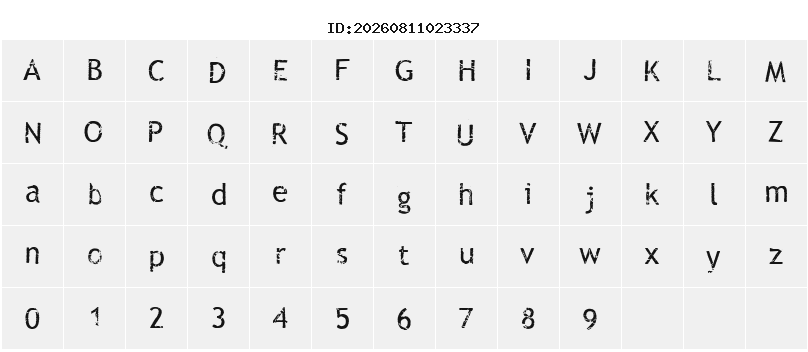
Rub This! Preview
• Font Name: Rub This!
• Font Style: Transfer Sheet
• Full Font Name: Rub This! Transfer Sheet
About Rub This!.ttf
Rub This!.ttf is a modern, elegant sans-serif font designed for ultimate readability and visual harmony. Perfect for branding, headlines, web design, and print materials.